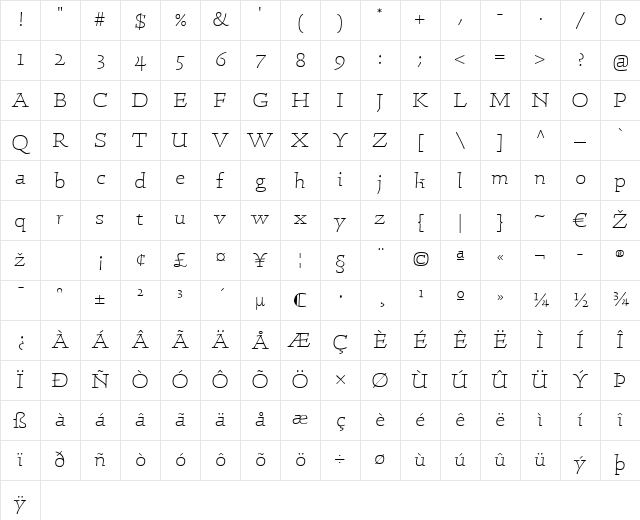
LTConrad Light Regular
Designer: Akira Kobayashi
Design Context for LTConrad Light
LTConrad Light is a composed and adaptable typeface that performs quietly and consistently across a wide range of design contexts. Its slender proportions lend an understated elegance to any composition.